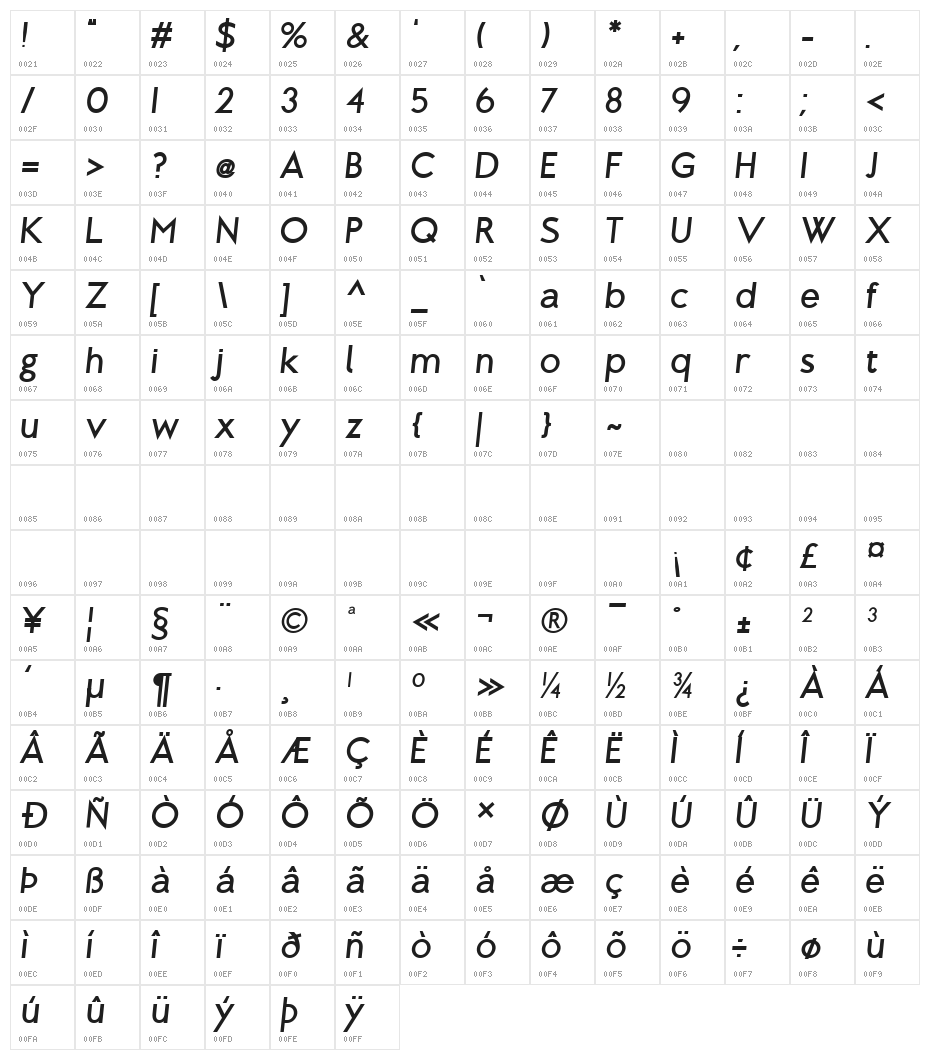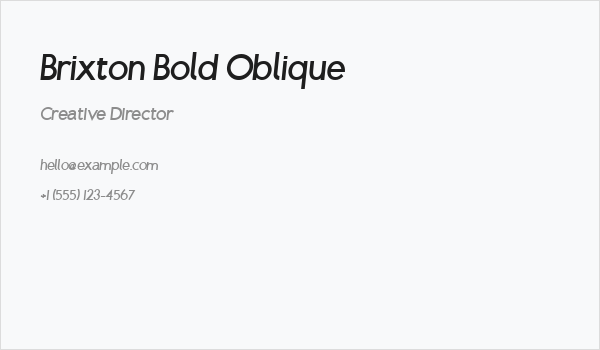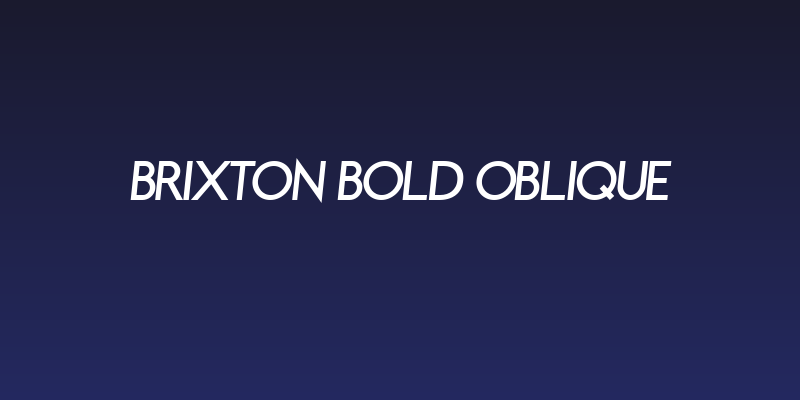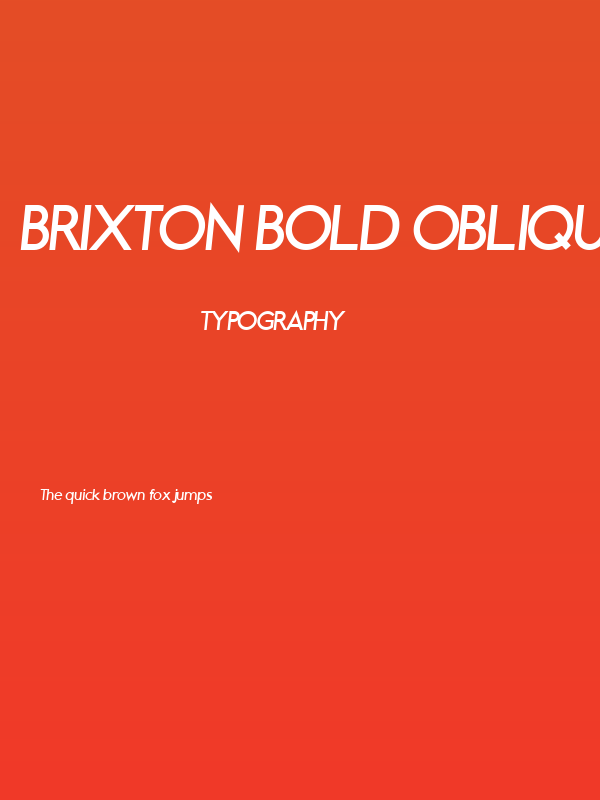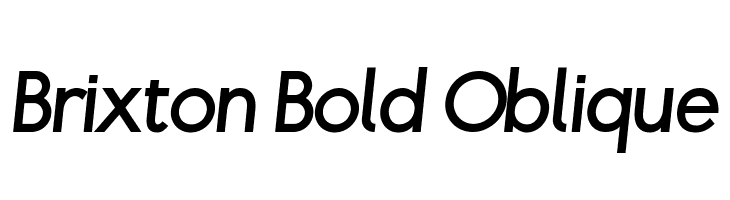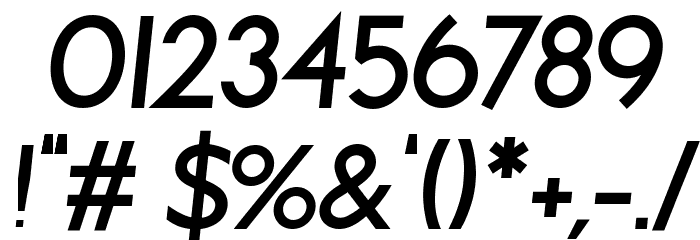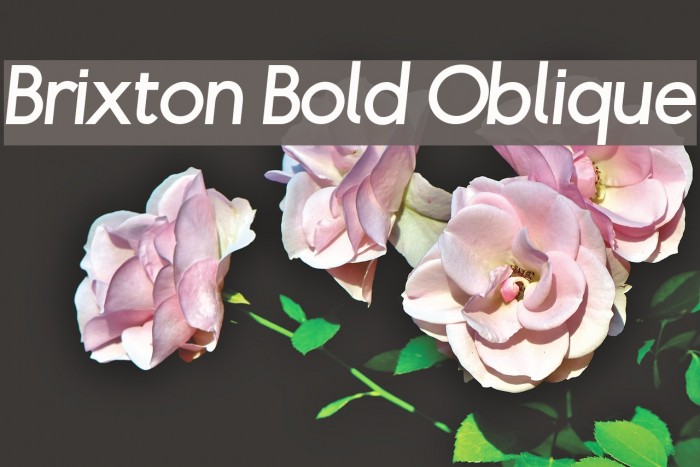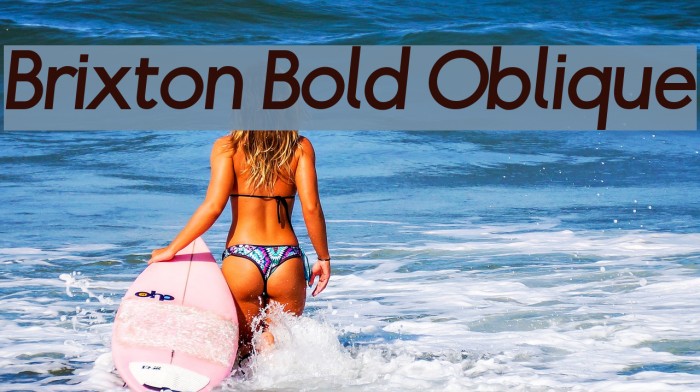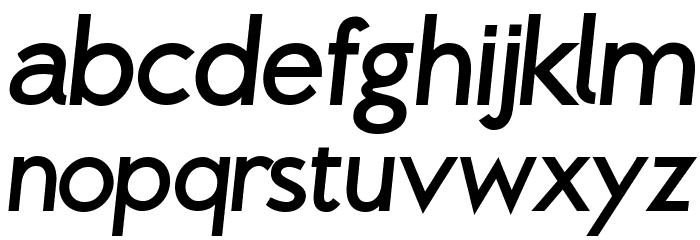
Brixton Bold Oblique Font
Brixton Bold Oblique Description
This font exhibits a bold and oblique style, characterized by its strong and dynamic presence. The uppercase and lowercase letters are designed with a slight slant, adding a sense of movement and modernity. The strokes are thick and consistent, providing a robust appearance. The numerals and special characters maintain the same boldness, ensuring uniformity across all glyphs. The overall design is clean and contemporary, making it suitable for a variety of applications where a bold statement is needed.